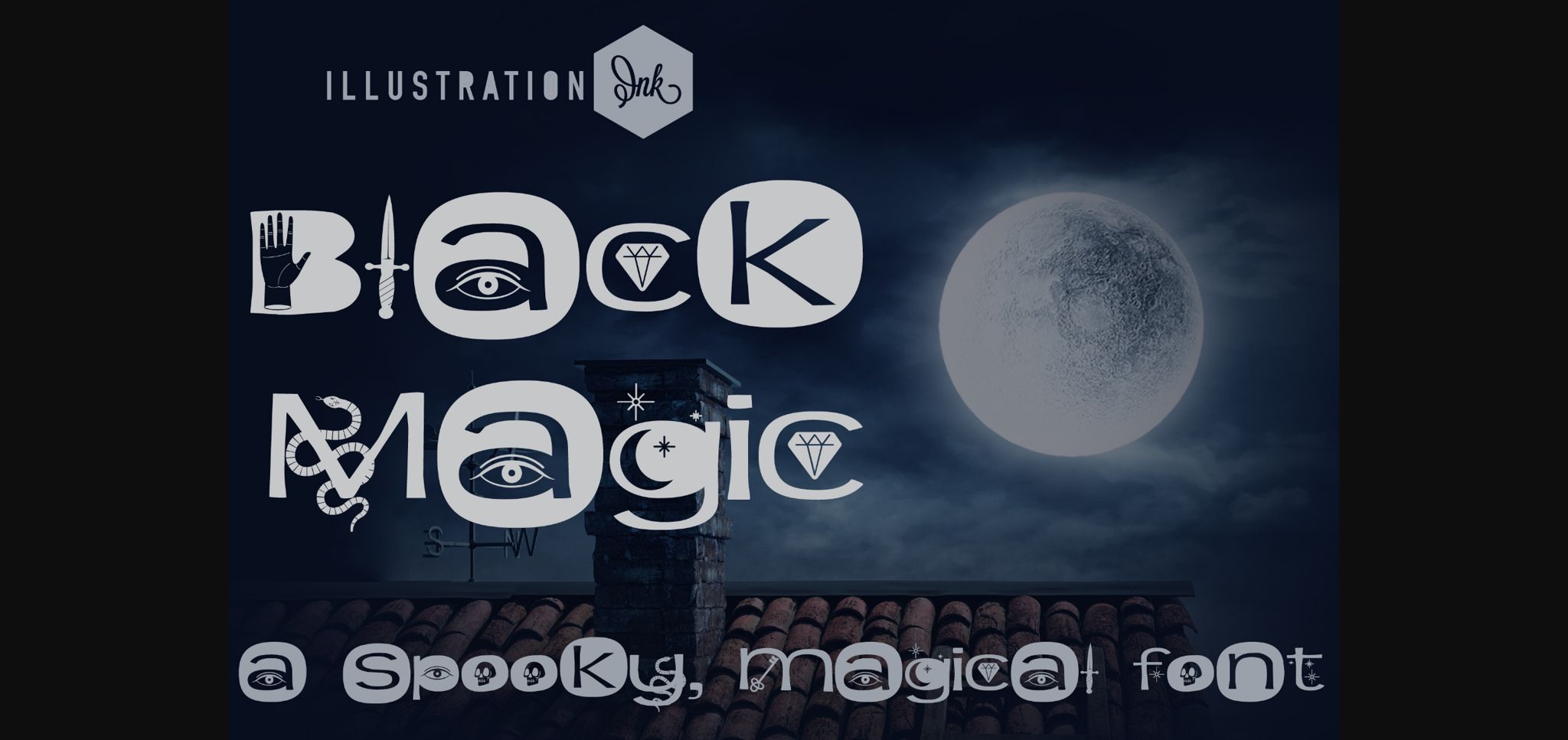
About Black Magic Font
This hand-crafted font a crafty font filled with magical elements.
A hand-crafted font is a font that is designed to look like it was written by hand. It is often used for invitations, greeting cards, and other items. Handwritten fonts can be either formal or informal, and they can be used for a variety of purposes.